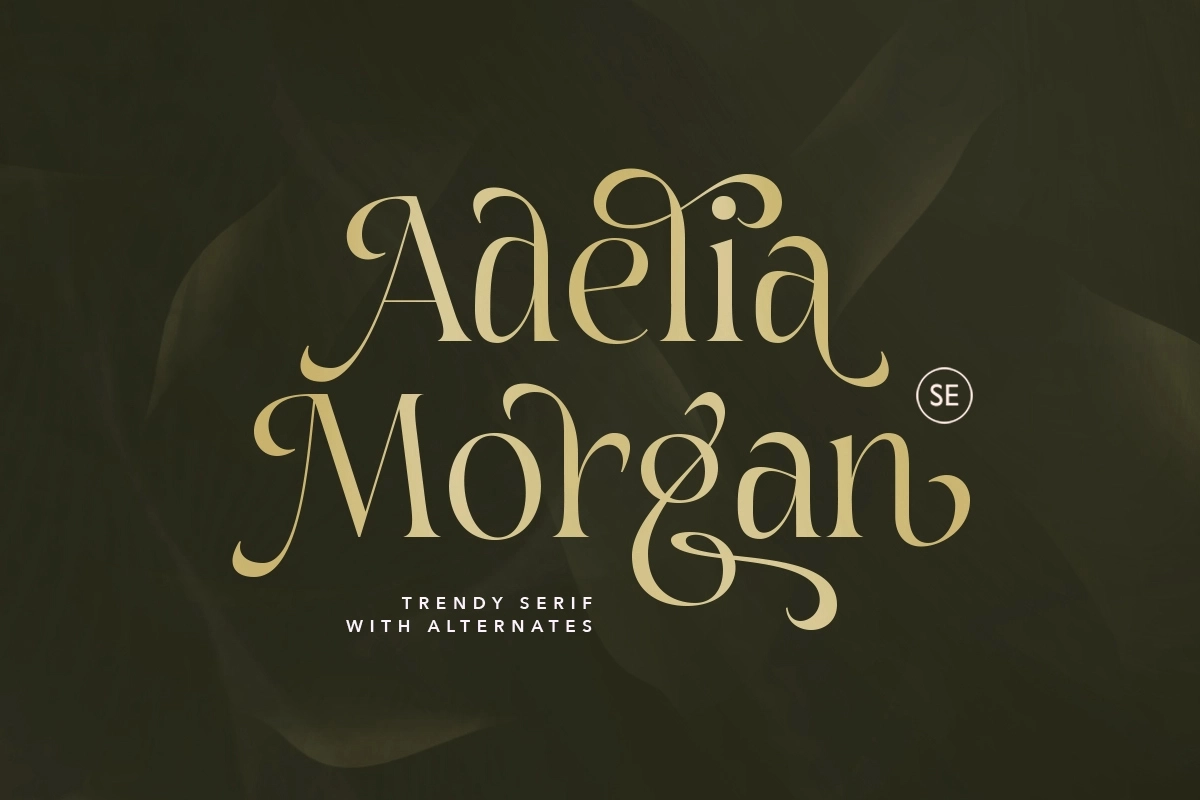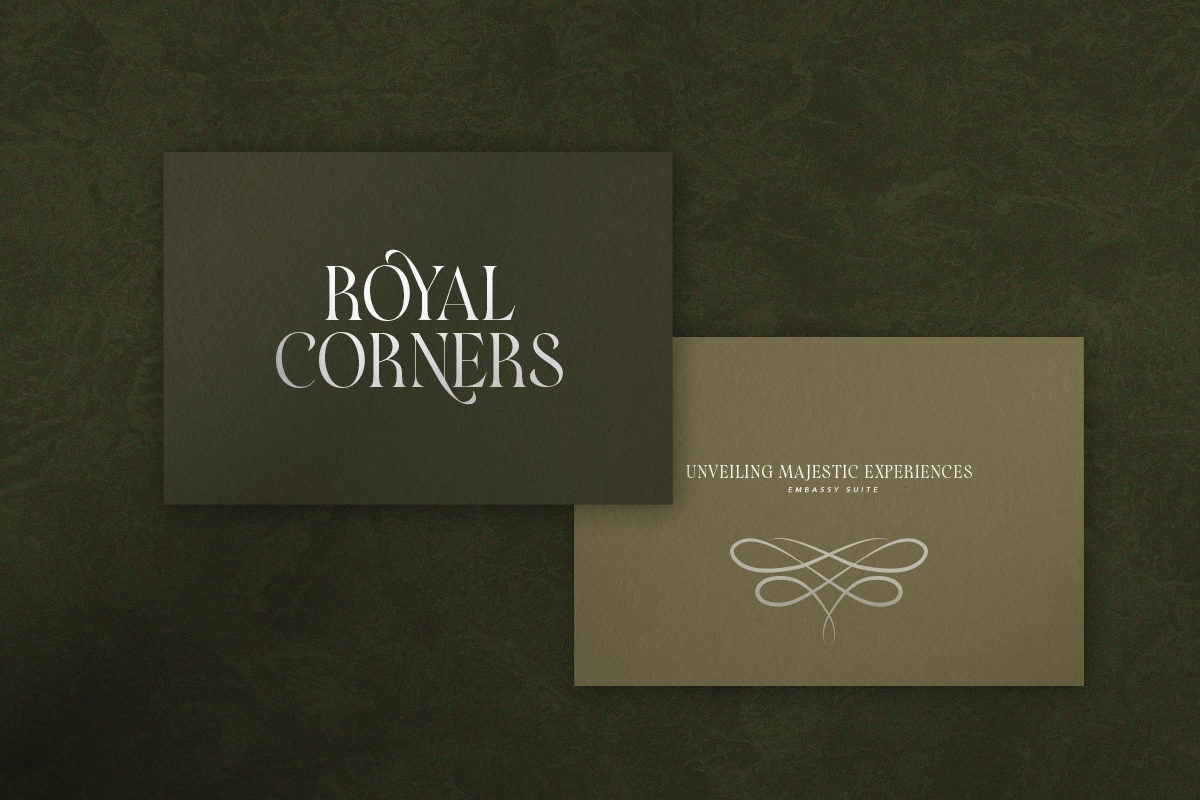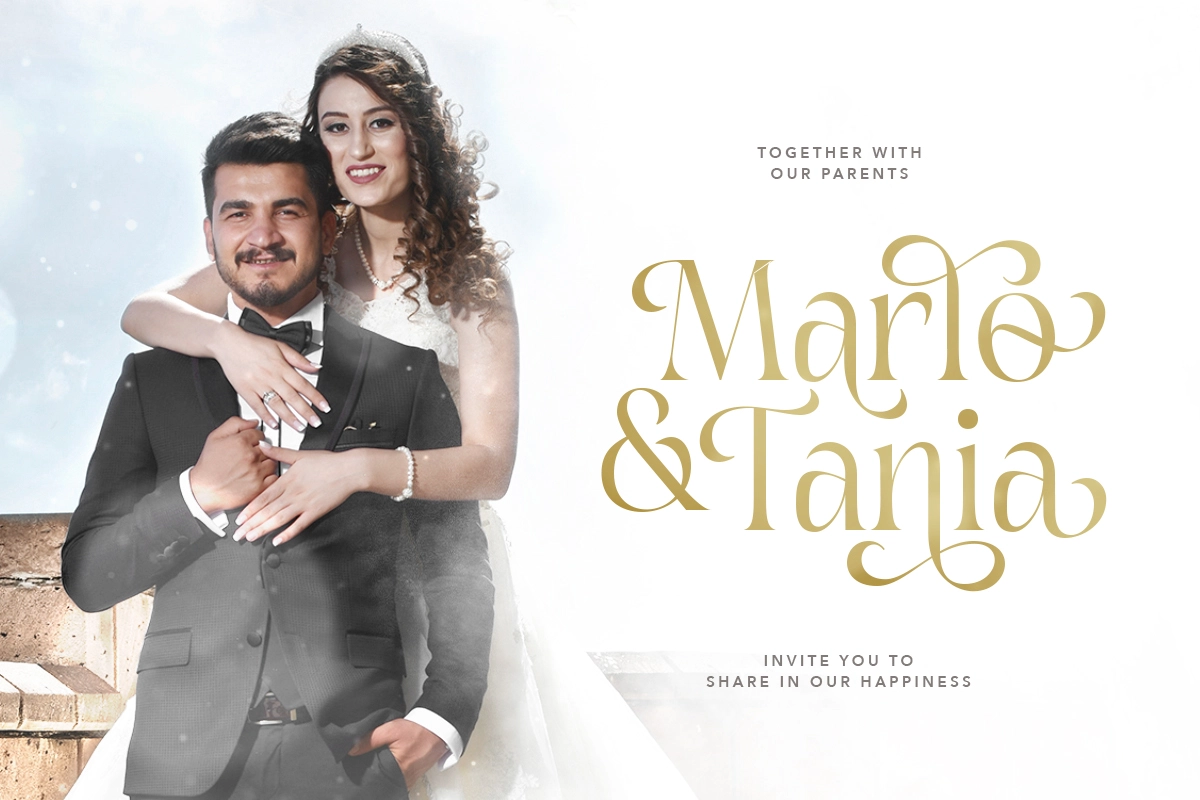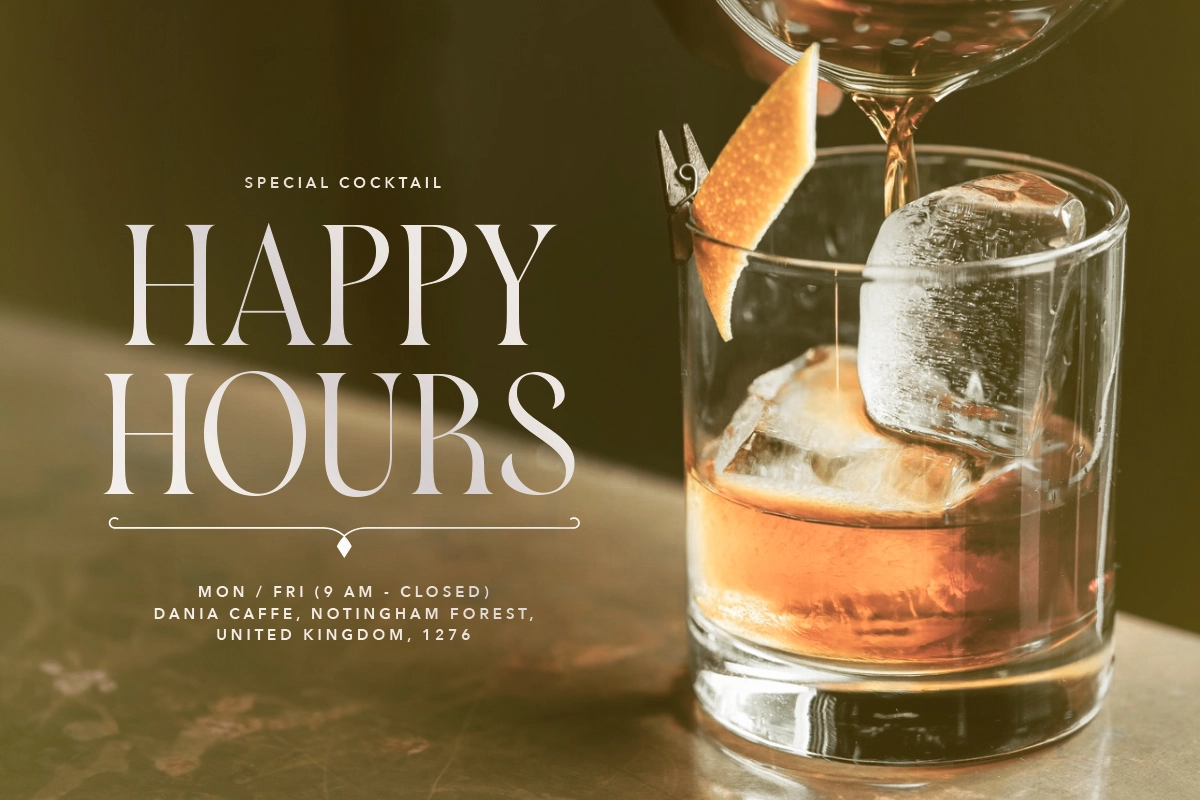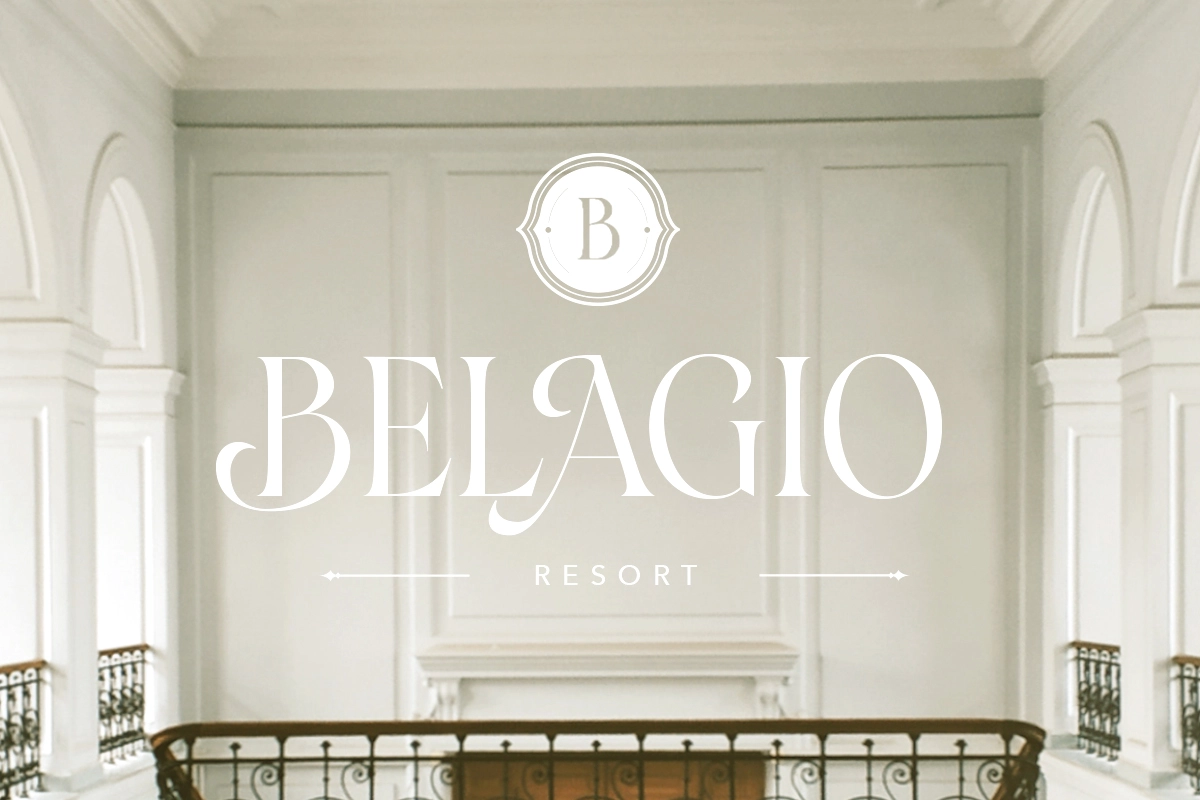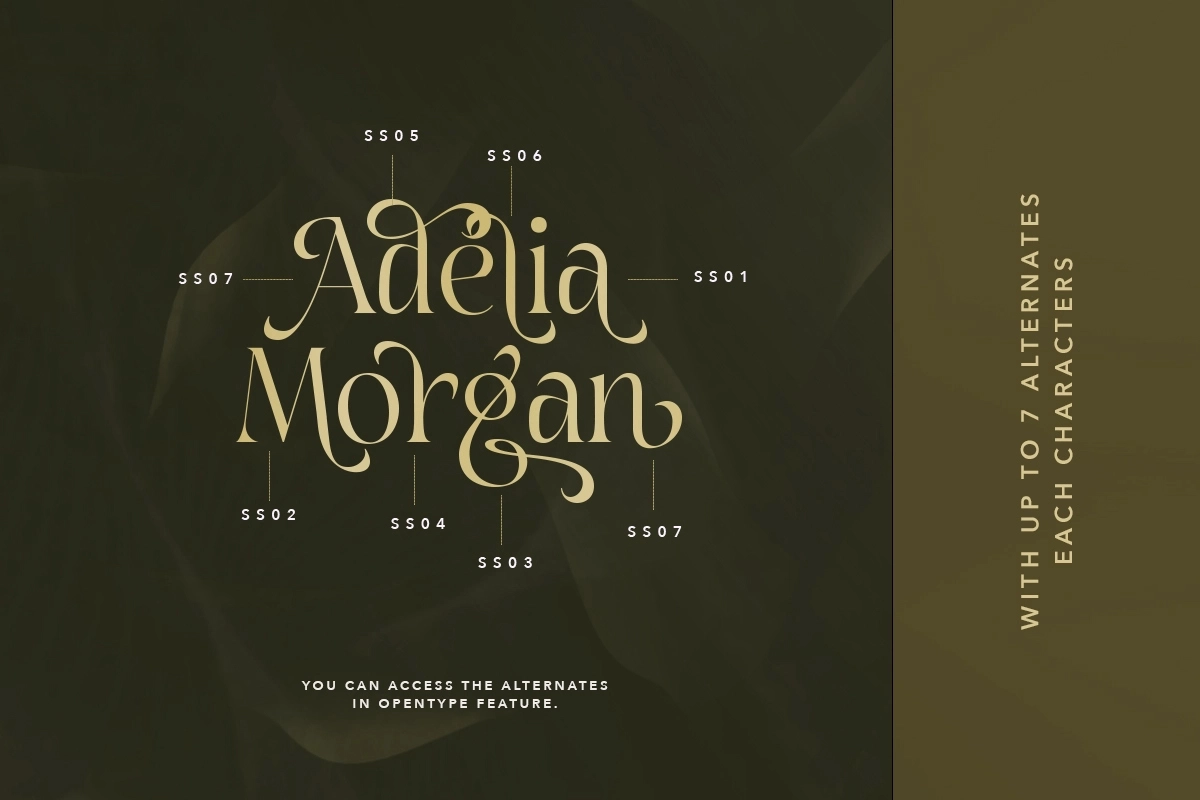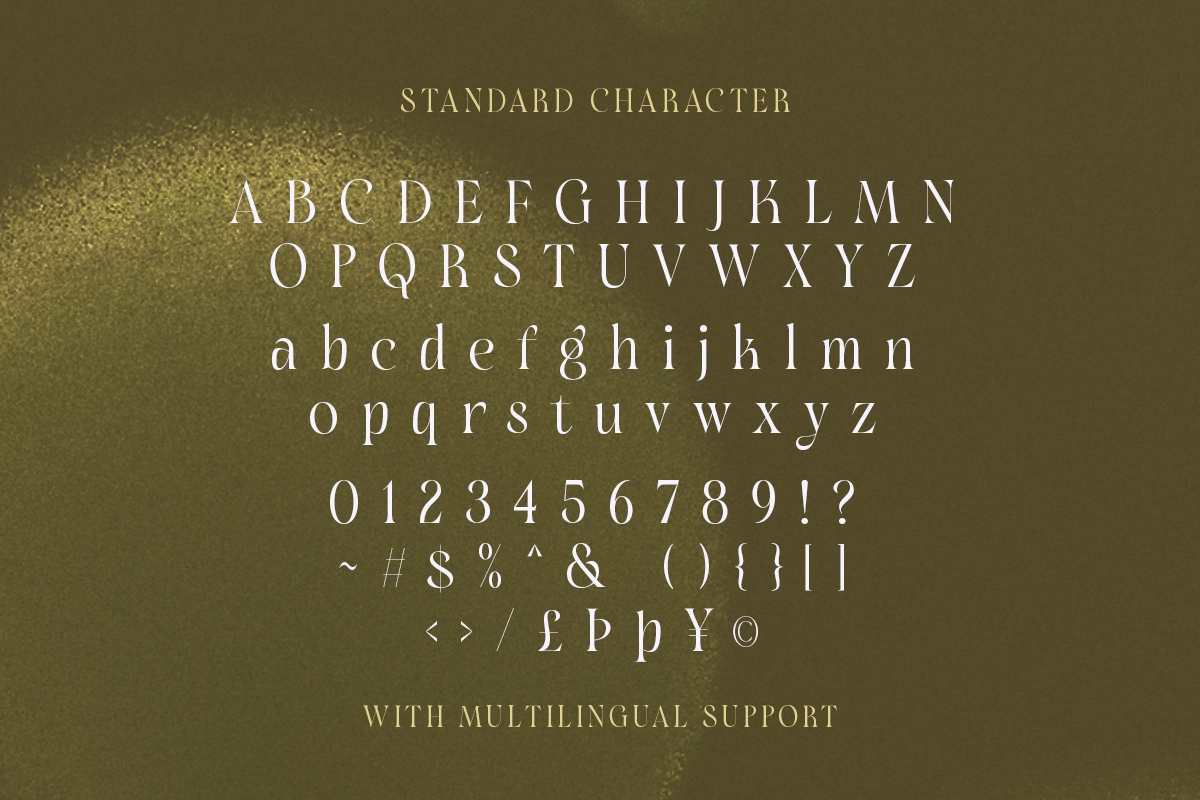
Adelia Morgan - Trendy Serif
Adelia Morgan
Adelia Morgan is a modern and trendy serif with a bunch of alternates for each characters that will make your project or logo more eye catching! You can use this font for many purpose such as wedding invitation, branding, or even your own logo. With up to 7 alternates each characters, you have unlimited choices that you can access from opentype features. This fonts support Multi Language.